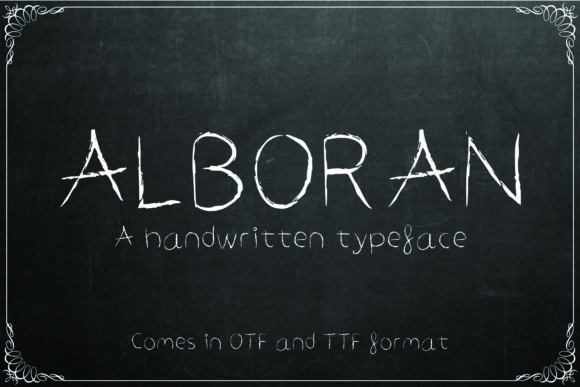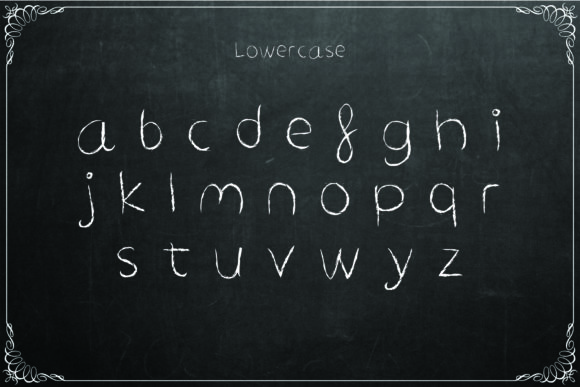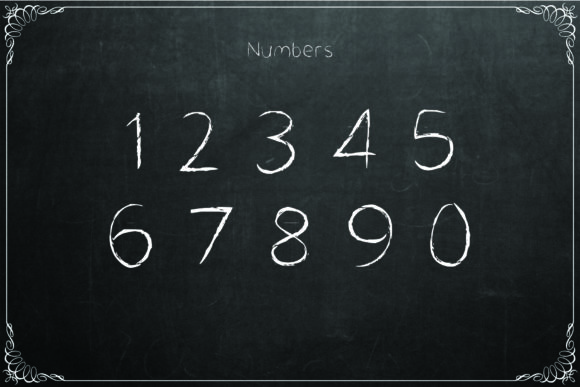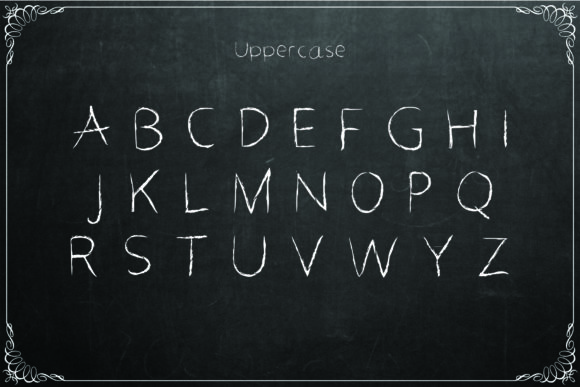
Alboran Font
About Alboran Font
Alboran is a handwritten font that gives an authentic look & feel to your design. Fall in love with its exciting character!